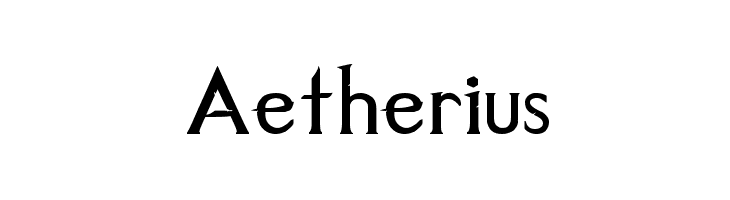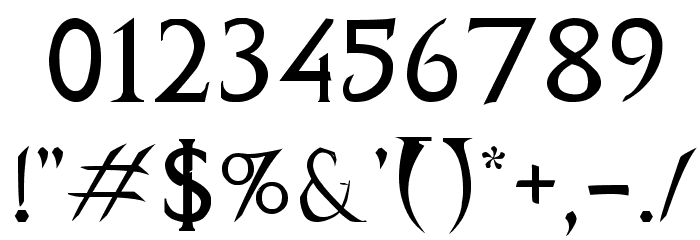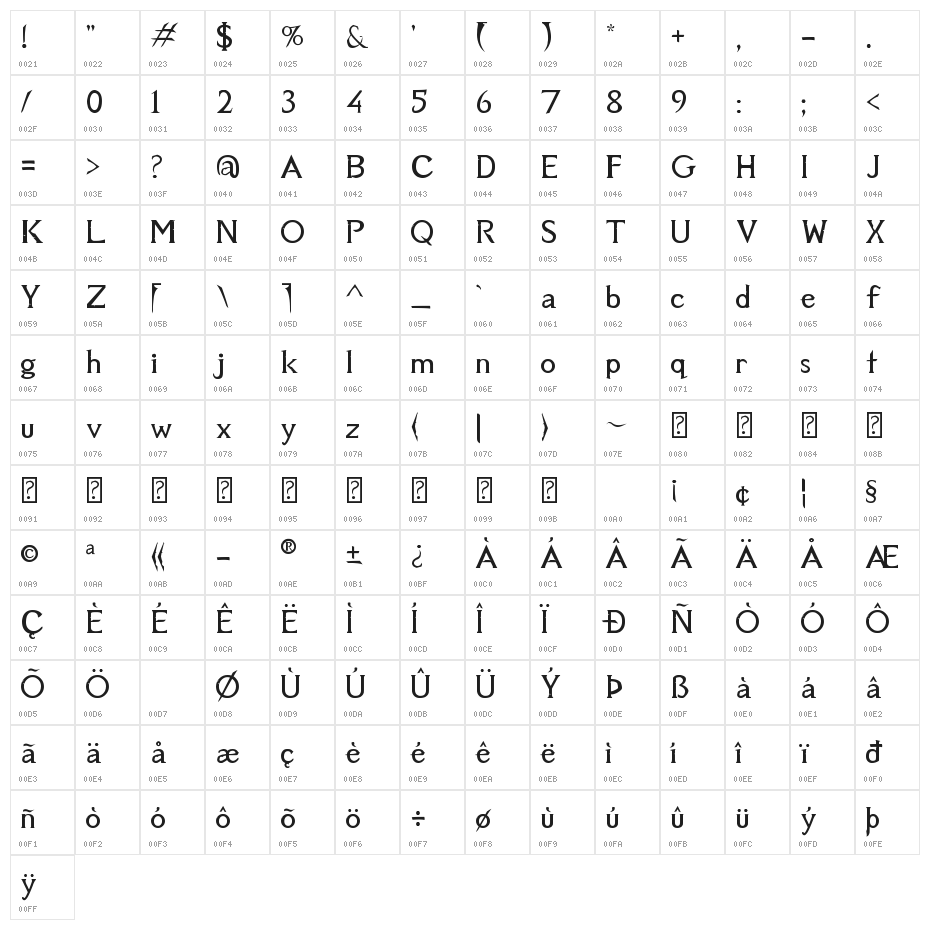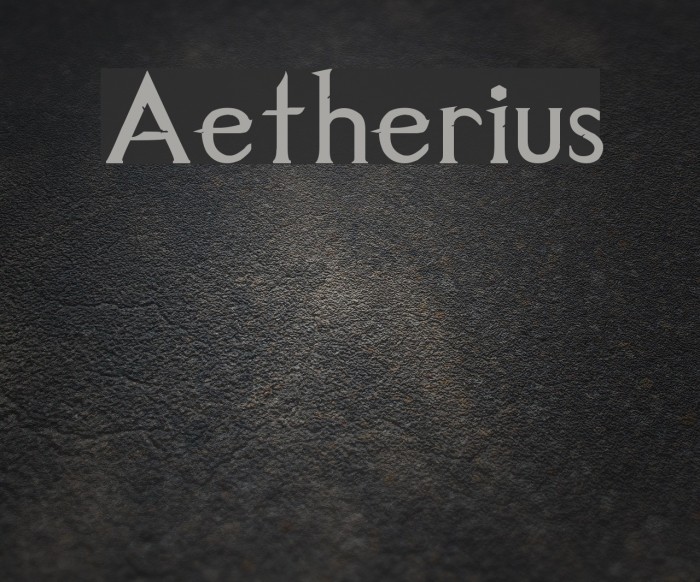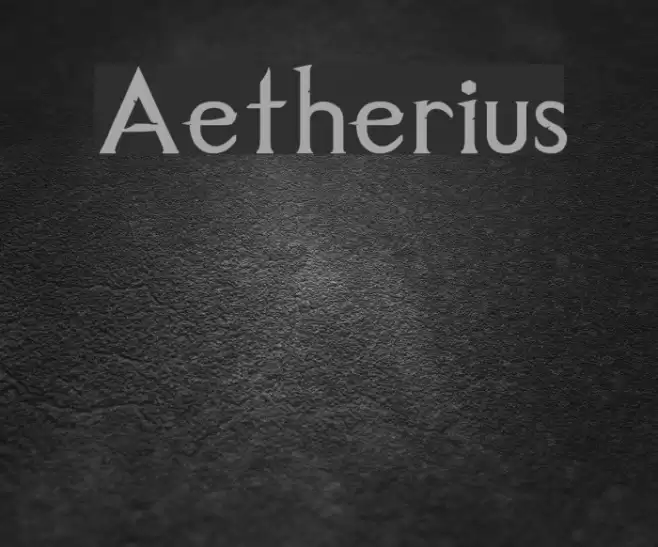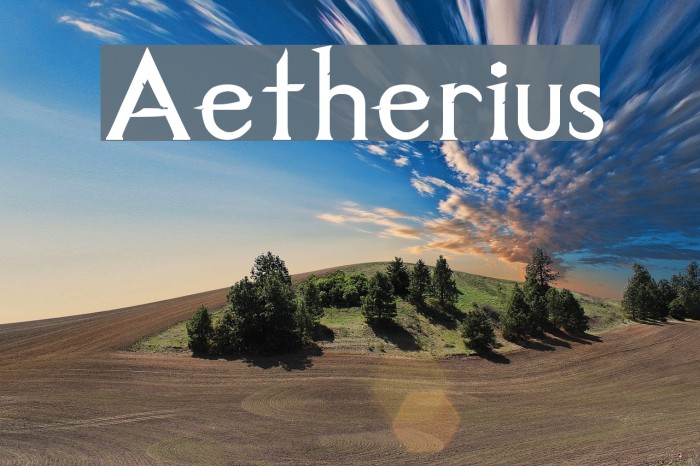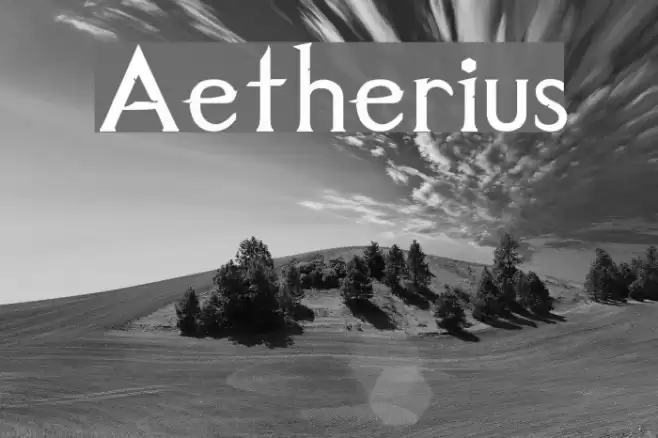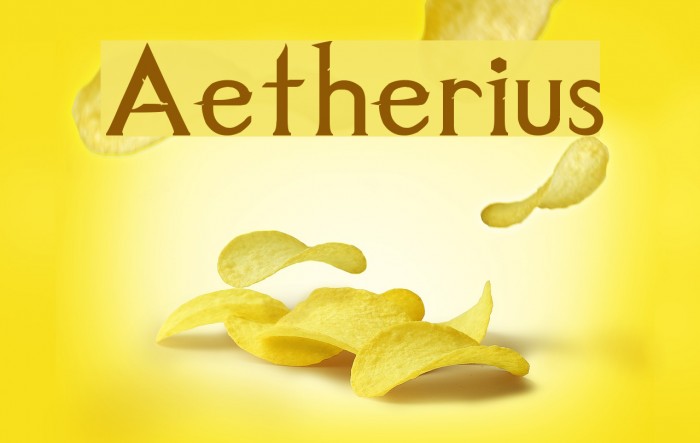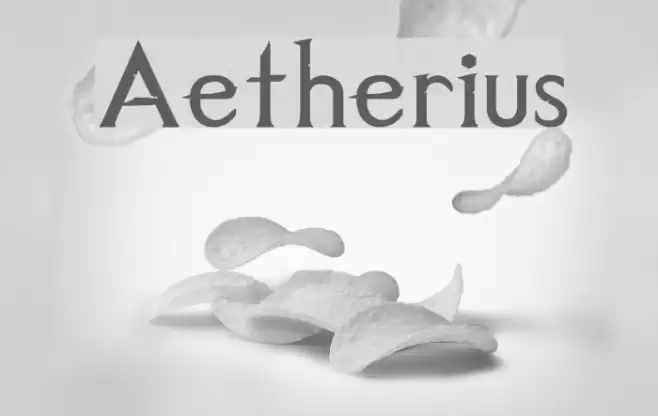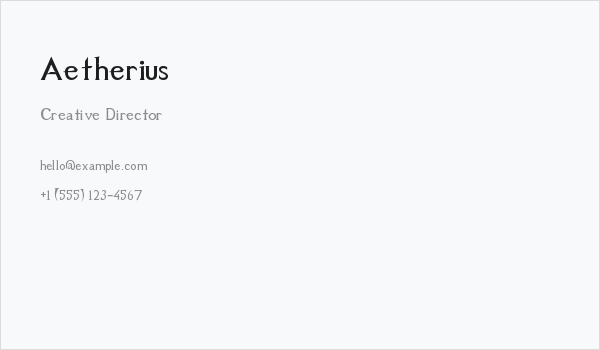
Aetherius Font
Aetherius Description
This font features a distinct blend of classic and modern elements, characterized by sharp serifs and a slightly medieval flair. The uppercase letters are bold and commanding, with unique angular serifs that give them a strong presence. The lowercase letters maintain a consistent style, with rounded forms that contrast with the sharpness of the serifs. Numbers are clear and legible, with a uniform height that aligns well with the uppercase characters. Special characters are designed with the same attention to detail, ensuring a cohesive look across all glyphs. The overall design is both decorative and functional, making it suitable for a variety of applications.
| Use Case | Headlines, Logos, Decorative text |
| Proposed Projects | Ideal for book covers, fantasy-themed projects, branding, and posters. |